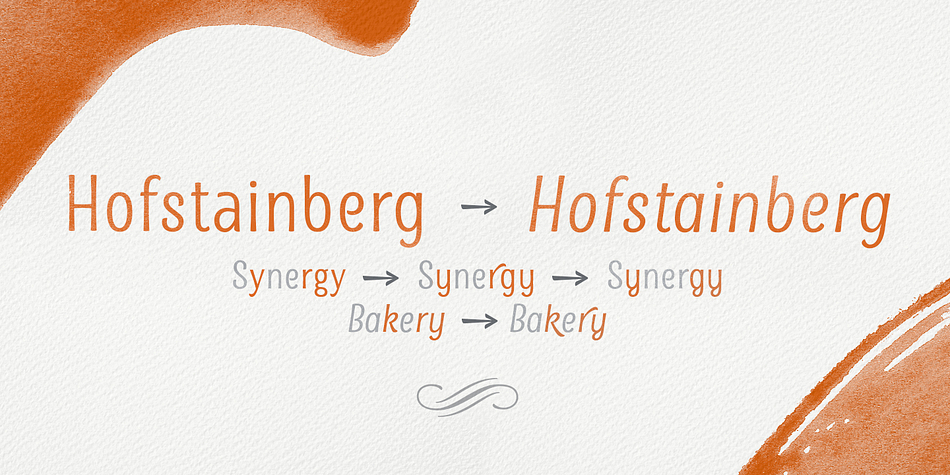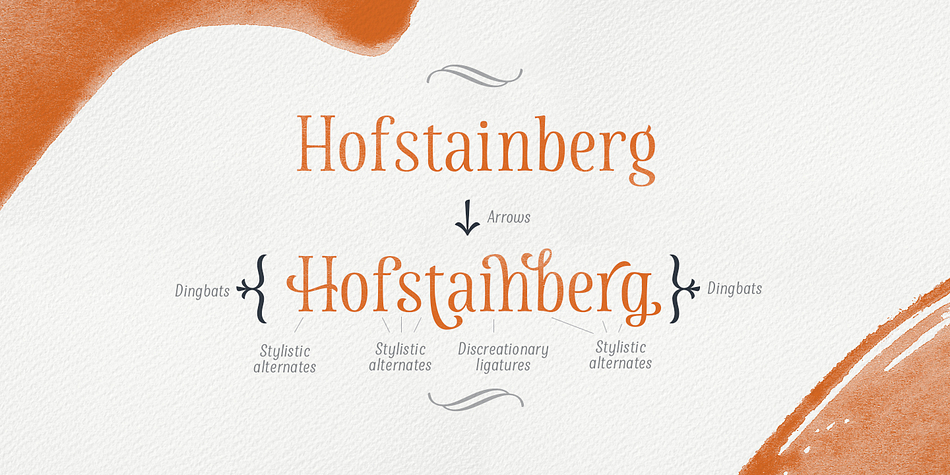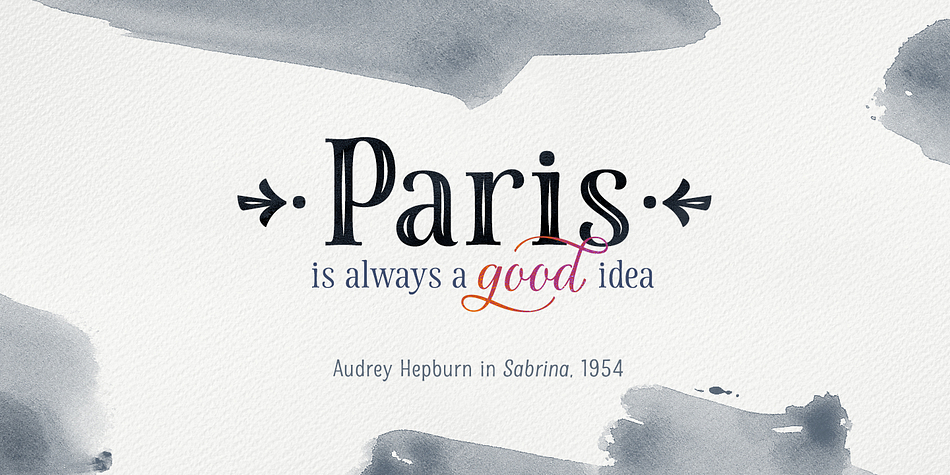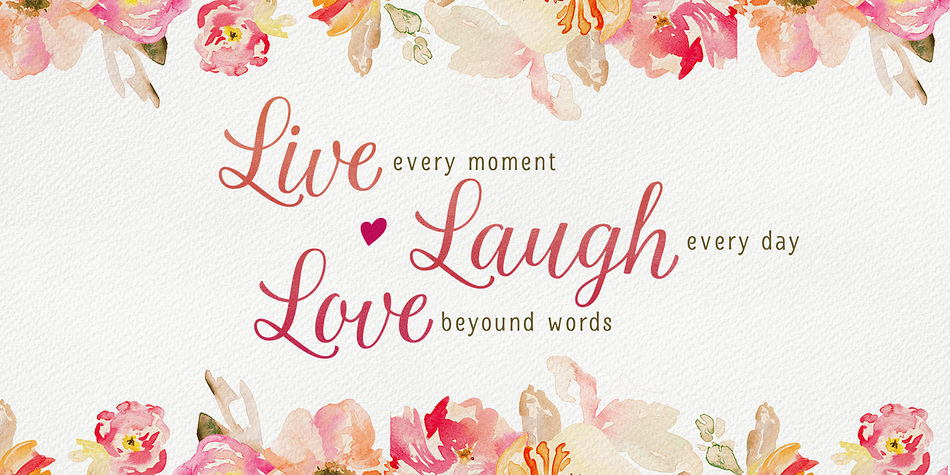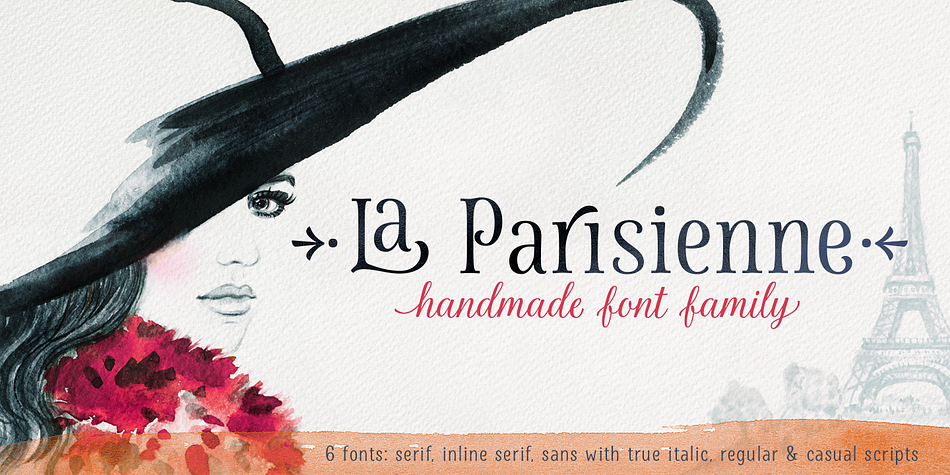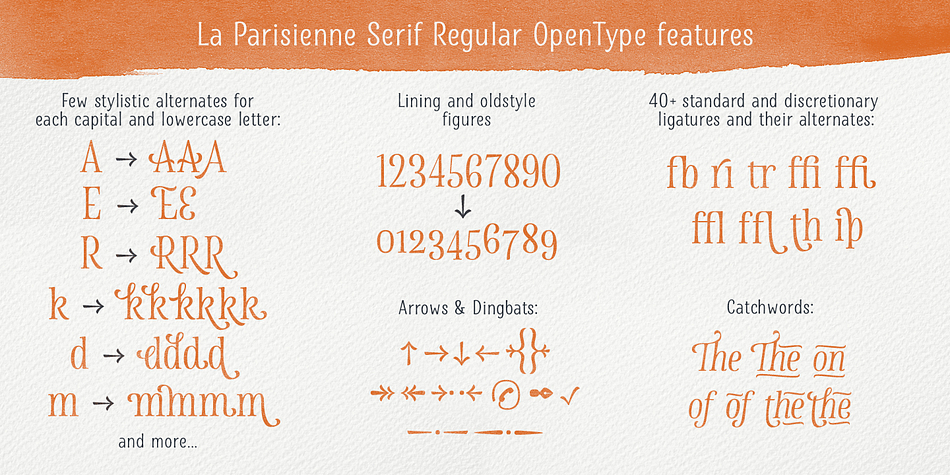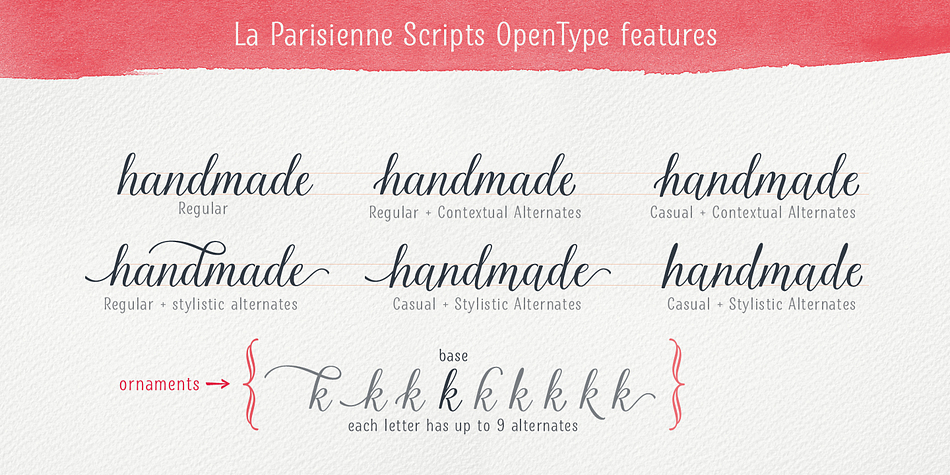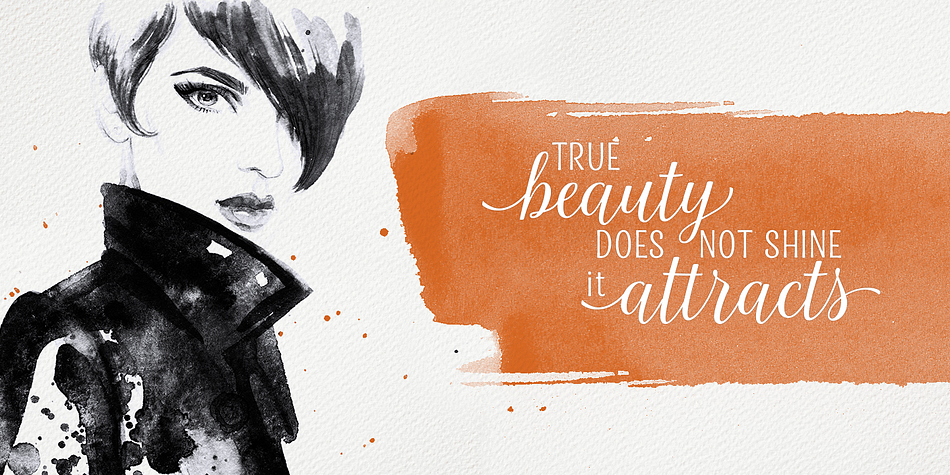
Designed by Elena Genova, La Parisienne is a hand drawn and script font family. This typeface has six styles and was published by My Creative Land.
La Parisienne is a collection of fonts inspired by Paris avenues and boulevards full of inimitable french charm. The family is a mix of handlettering and classic forms. All fonts in collection work well together and while they share some of the features each of the fonts has it’s own character. The main fonts in the collection are full of open type features such as stylistic and contextual alternates and swashes.